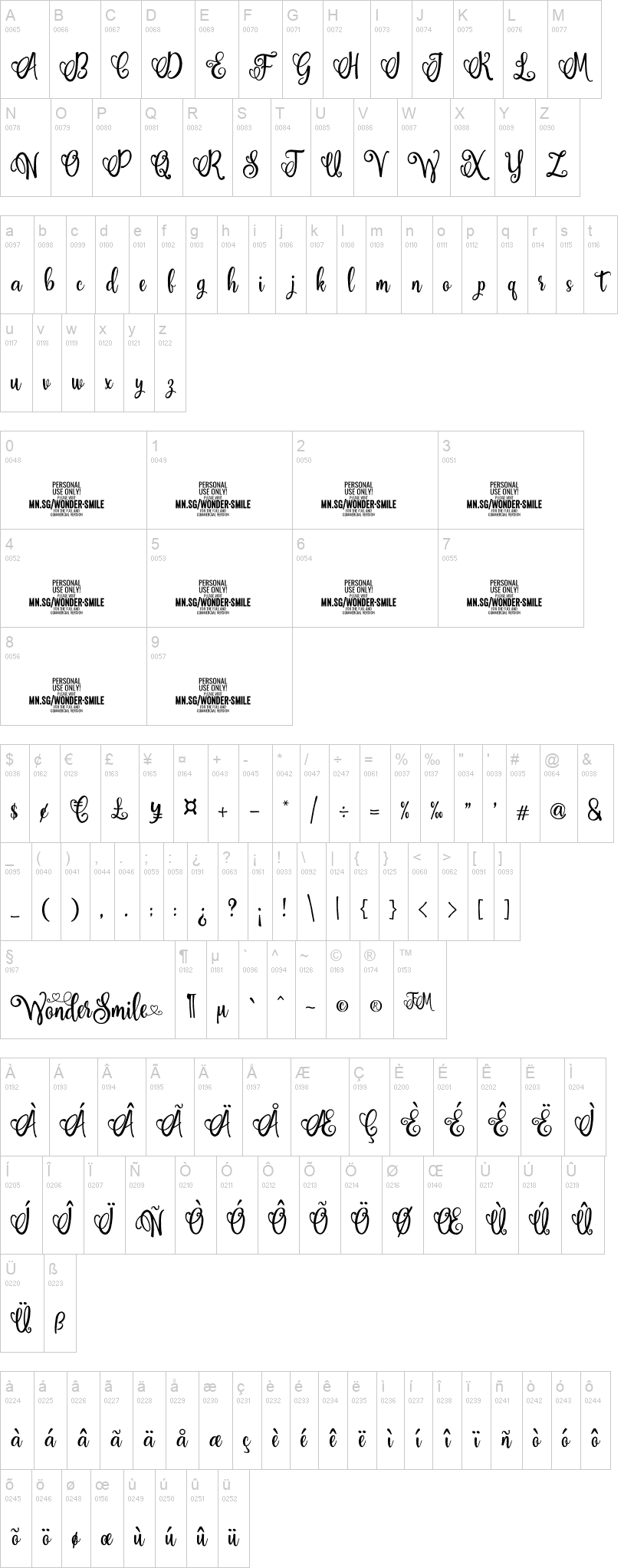
Use underscore _ before or after any letter to make cute heart decorations.
Example: _beauty_
Write # after any letter to make a swash.
Example: Wand#er